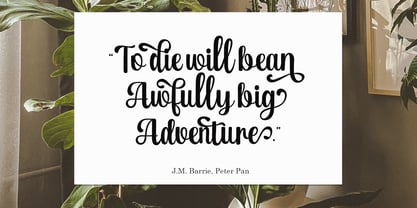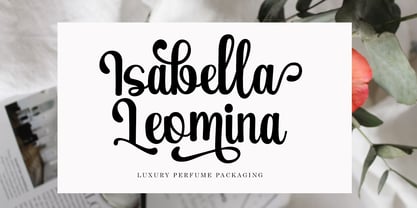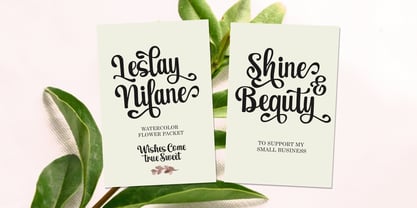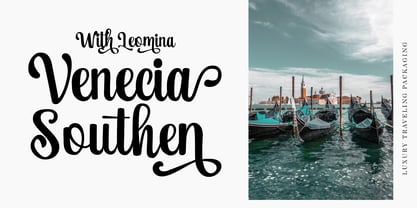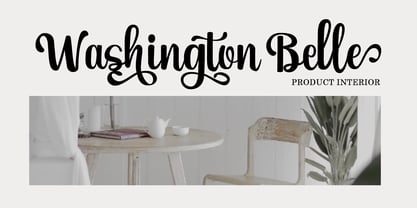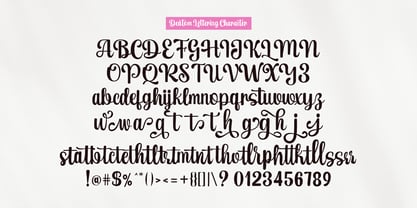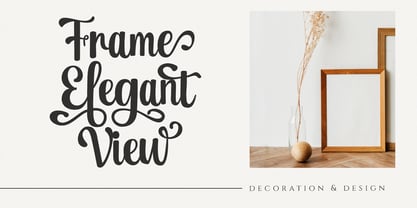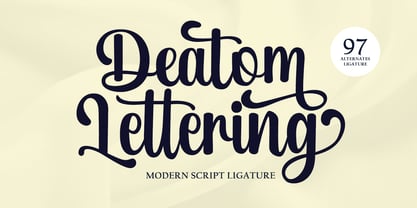
Deatom Lettering
by Gatype
The Deatom Lettering Font Family was designed by khaidir and published by Gatype. Deatom Lettering contains 1 styles. More about this family
Deatom Lettering is a beautiful handwritten calligraphy font, designed with a unique, feminine, and elegant touch. This beautiful typeface is available in regular and bold versions. Deatom Lettering stands out for its extensive collection of glyphs. Multilingual support is incredibly versatile, offering endless possibilities for customization and creativity in your designs, such as branding, logos, advertisements, merchandise, social media posts, packaging, magazine covers, websites, wedding invitations, and more.
Designers: khaidir
Foundry: Gatype